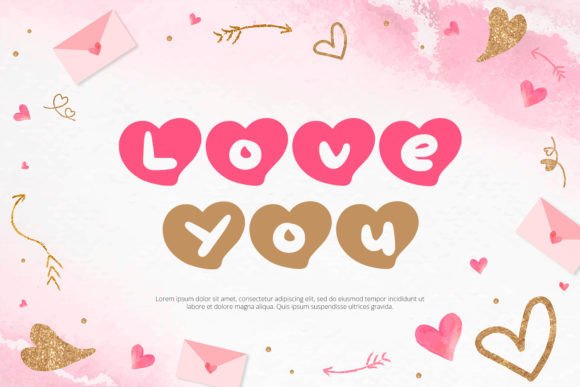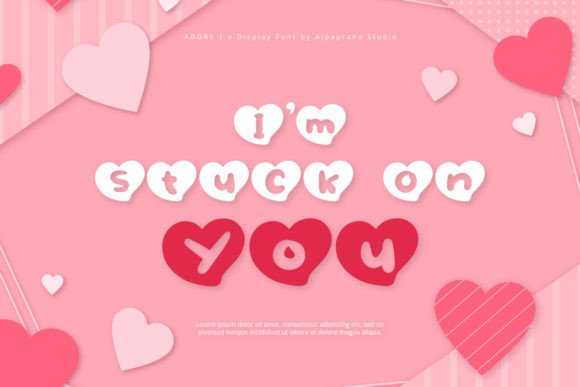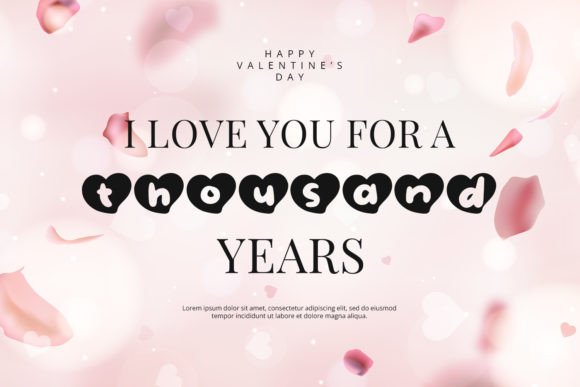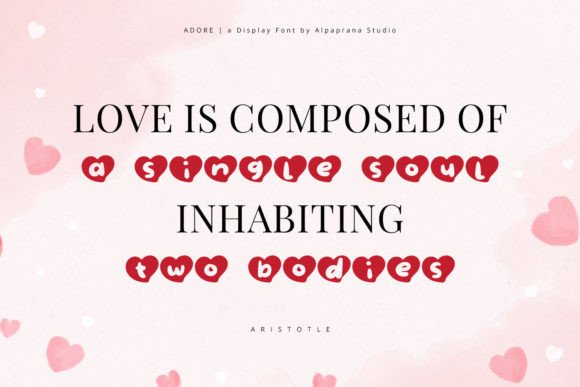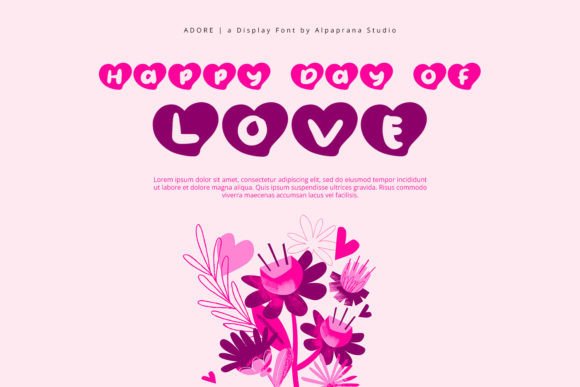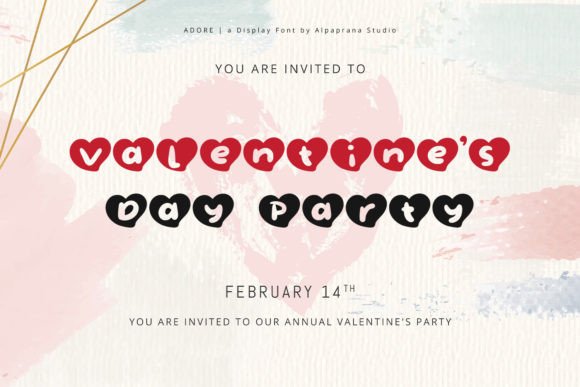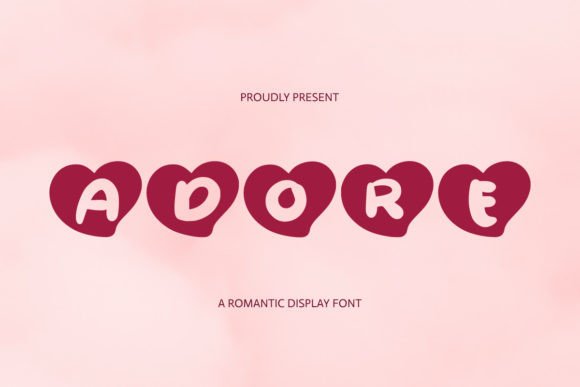
Introducing Adore Font: The Perfect Blend of Romance and Playfulness
In the world of typography, fonts play a crucial role in conveying emotions and setting the tone for a brand or design project. For designers and crafters looking for a unique and captivating font, Adore Font is an excellent choice. This display font is designed to evoke romantic and playful feels, making it perfect for a wide range of applications.
What is Adore Font?
Adore Font is a carefully crafted display font that combines the elegance of romance with the whimsy of playfulness. Its distinctive design makes it an ideal choice for designers seeking to add a touch of sophistication and charm to their projects. Whether you’re working on branding, logo design, lettering, or logotype, Adore Font is sure to make a lasting impression.
Key Features of Adore Font
- Unique Design: Adore Font boasts a one-of-a-kind design that sets it apart from other fonts. Its romantic and playful elements make it perfect for projects that require a touch of elegance and whimsy.
- Versatility: This font is incredibly versatile and can be used for a wide range of design projects, including branding, logo design, lettering, logotype, clothing, posters, magazines, packaging, shopping bags, t-shirts, book covers, photography, special events, and more.
- Easy to Read: Despite its unique design, Adore Font remains easy to read, making it perfect for use in various applications, from headlines to body text.
- Scalable: Adore Font is designed to be scalable, ensuring that it looks great in any size, from small to large.
Use Cases for Adore Font
Adore Font’s versatility makes it suitable for a wide range of design projects. Here are some use cases where Adore Font truly shines:
- Branding: Create a lasting impression with Adore Font by using it for your brand’s logo, lettering, or logotype. Its unique design will help your brand stand out from the competition.
- Logo Design: Design a captivating logo with Adore Font that reflects your brand’s personality and values.
- Clothing and Apparel: Add a touch of elegance and playfulness to your clothing and apparel designs with Adore Font. It’s perfect for t-shirts, hoodies, dresses, and more.
- Posters and Magazines: Create eye-catching posters and magazine covers with Adore Font. Its unique design will grab the attention of your audience and leave a lasting impression.
- Packaging: Elevate your packaging design with Adore Font. Use it for labels, tags, or even the packaging itself to create a cohesive and captivating brand experience.
Tips for Using Adore Font
To get the most out of Adore Font, here are some tips to keep in mind:
- Experiment with Sizes: Adore Font looks great in various sizes, so don’t be afraid to experiment with different sizes to find the perfect fit for your project.
- Pair with Other Fonts: Combine Adore Font with other fonts to create a unique and visually appealing typography. Its romantic and playful feel pairs well with modern sans-serif fonts or elegant script fonts.
- Use it Sparingly: While Adore Font is perfect for headlines and titles, use it sparingly for body text. Its unique design may be overwhelming for large blocks of text.